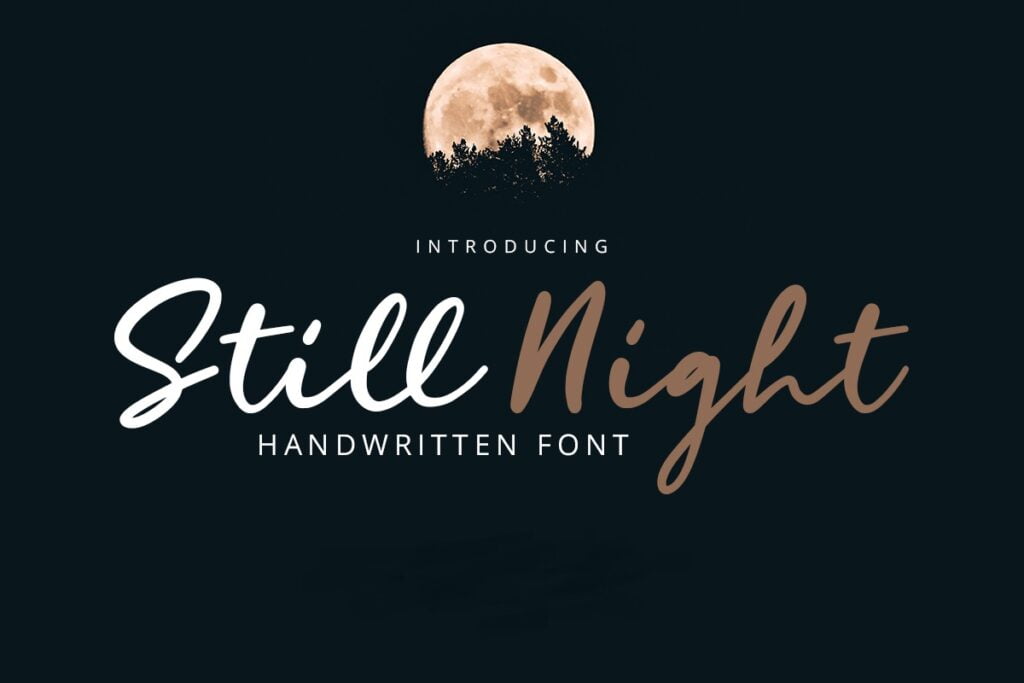
Still Night Font
Still Night Script Font, very suitable as to make adorable invitation for wedding, birthday, special day. A collection of letters and numbers suitable your projects also great for Logotype, Branding Design, Logo Design, Digital Lettering Arts, T-Shirt/Apparel, Poster, Magazine, Signs, Advertising Design, and also perfect for your other projects branding.
Still Night Handwritten Script Font